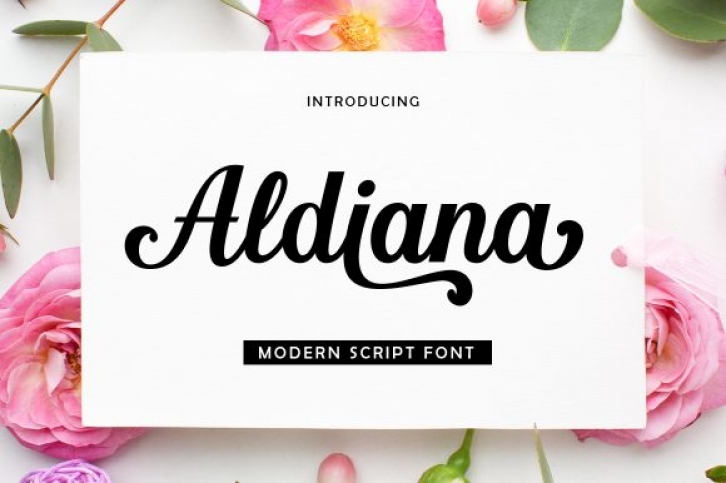
Aldiana Script is a contemporary calligraphy typeface. It’s a mix of retro and modern sans serif script. With Aldiana, your designs will get a classic and elegant touch. Aldiana can be used for various purposes such as logos, wedding invitations, T-shirts, letterheads, signage, labels, news, posters, badges etc.